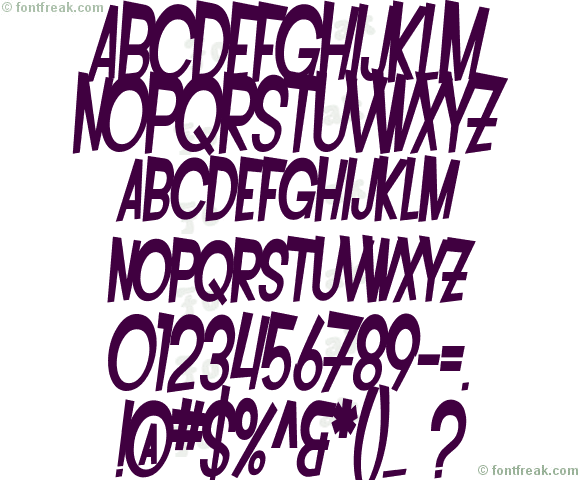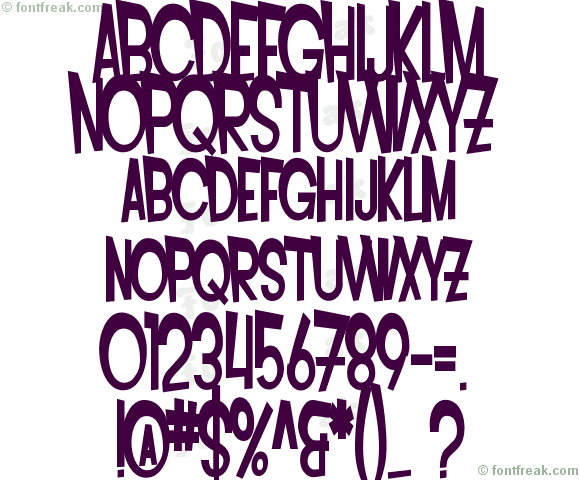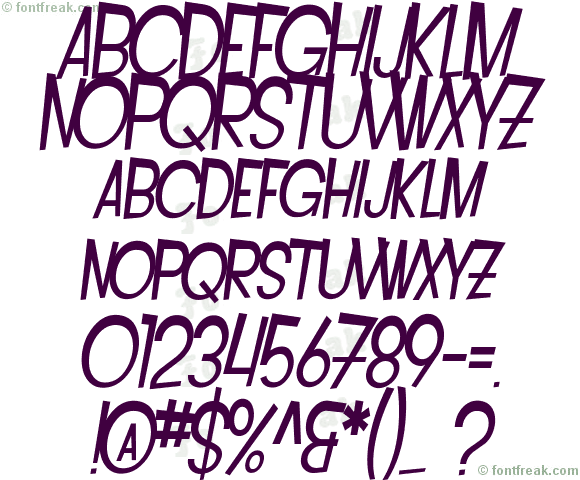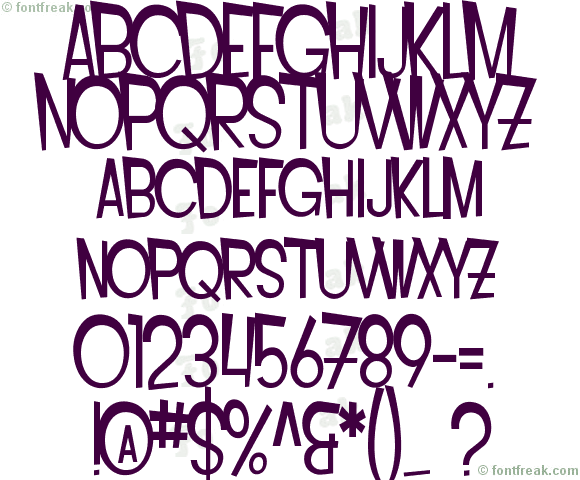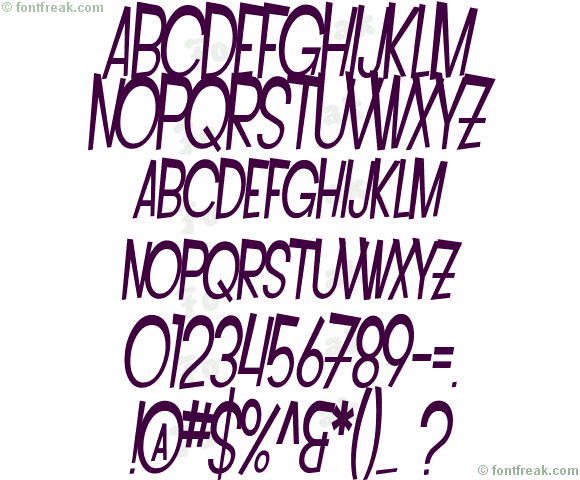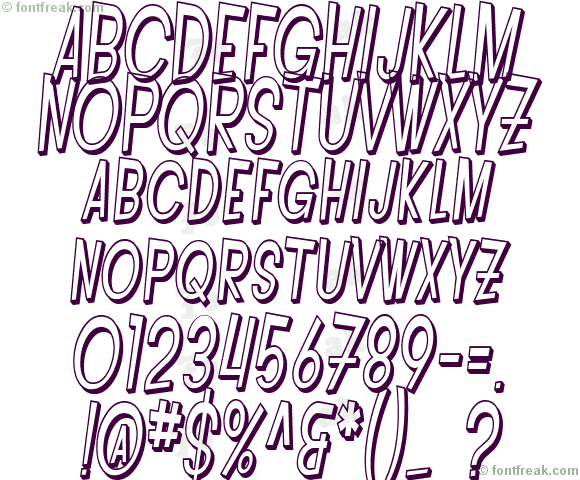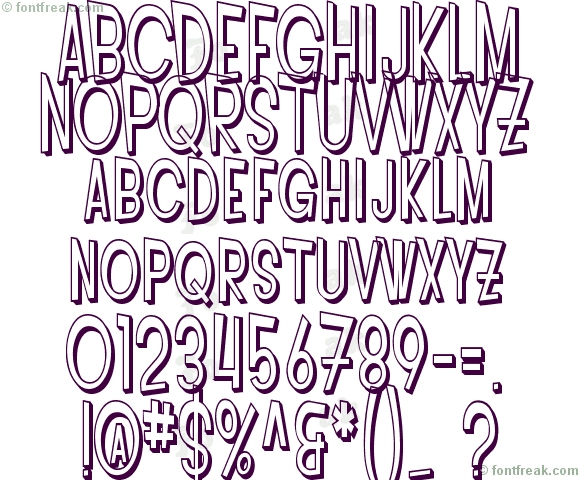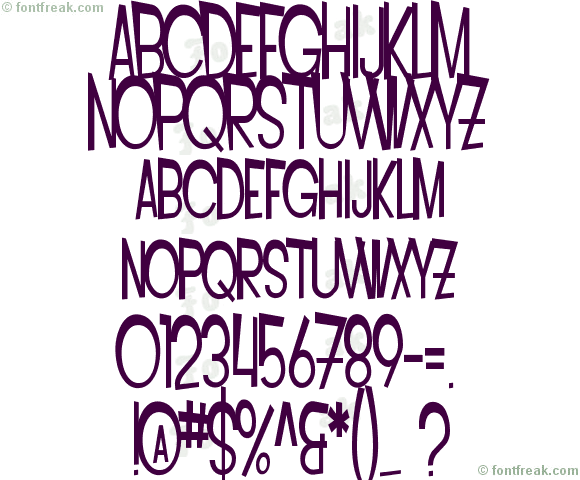
SF Intoxicated Blues
SF Intoxicated Blues Bold
SF Intoxicated Blues Shaded
SF Intoxicated Blues Extended
SF Intoxicated Blues Bold Oblique
SF Intoxicated Blues Shaded Oblique
SF Intoxicated Blues Extended Oblique
SF Intoxicated Blues Oblique
Intoxicated Blues by Shyfonts Type Foundry is a captivating display font that brings a unique character to any design project. This freeware typeface is characterized by its bold, shaded strokes and extended oblique style, creating an eye-catching visual appeal that effortlessly draws attention. The font features a moderate stroke weight with a distinct contrast that enhances its legibility while maintaining a playful aesthetic. The spacious letterforms allow for excellent readability, making it suitable for various applications.
Ideal for creative projects, Intoxicated Blues shines in settings such as wedding invitations, where its charming flair can elevate romantic themes. It also works beautifully on movie posters, where the boldness of the font can effectively convey drama and intrigue. Small business owners can utilize this font for restaurant menus, adding a touch of personality that reflects their brand's unique vibe. Content creators will find it perfect for social media graphics, where visual impact is key to engagement.
Graphic designers seeking a distinctive typeface will appreciate the versatility of Intoxicated Blues. Its playful nature allows for experimentation in branding, promotional materials, and other creative endeavors. The font’s unique design elements make it a strong choice for projects that aim to capture a specific mood or theme.
What truly makes the Intoxicated Blues font stand out is its blend of boldness and charm, offering a fresh approach to typography. With its free download availability, this font invites designers and creators alike to explore its potential in their work. Whether you’re crafting a vibrant poster or a stylish invitation, Intoxicated Blues adds a whimsical touch that is sure to leave a lasting impression. Download the Intoxicated Blues font free today and let your creativity flow.